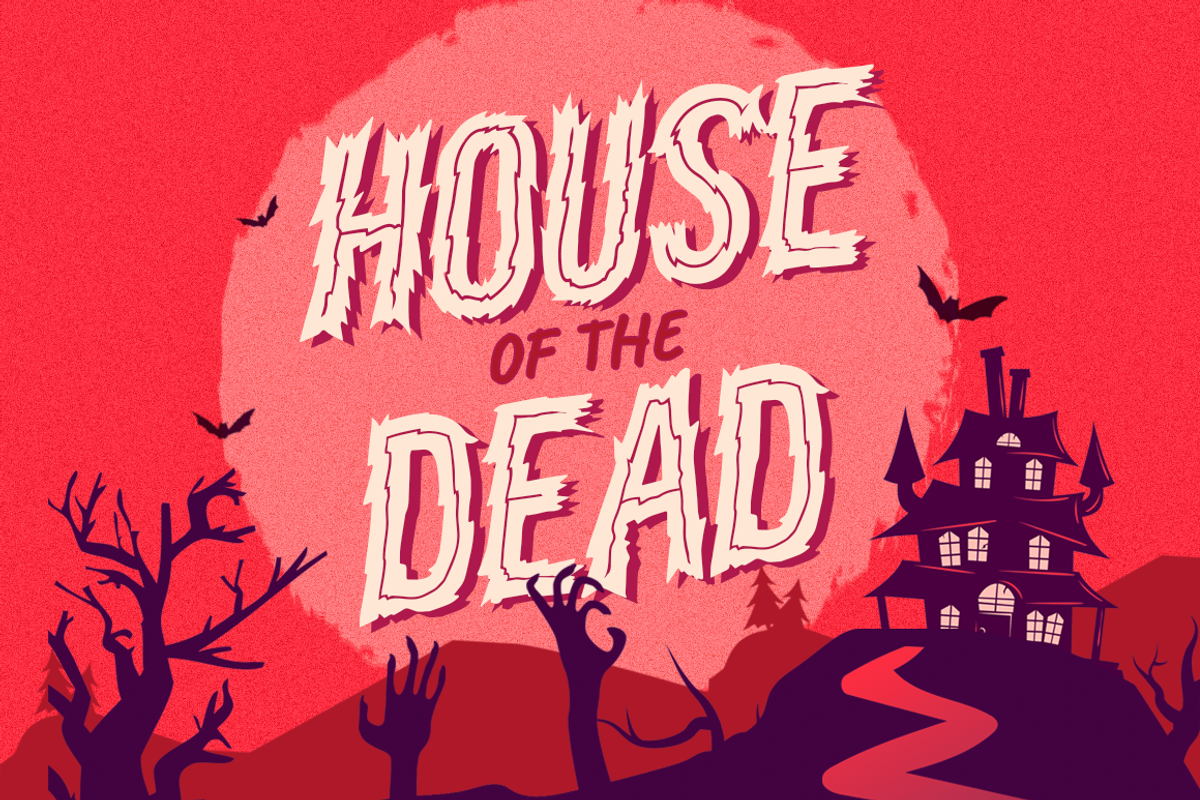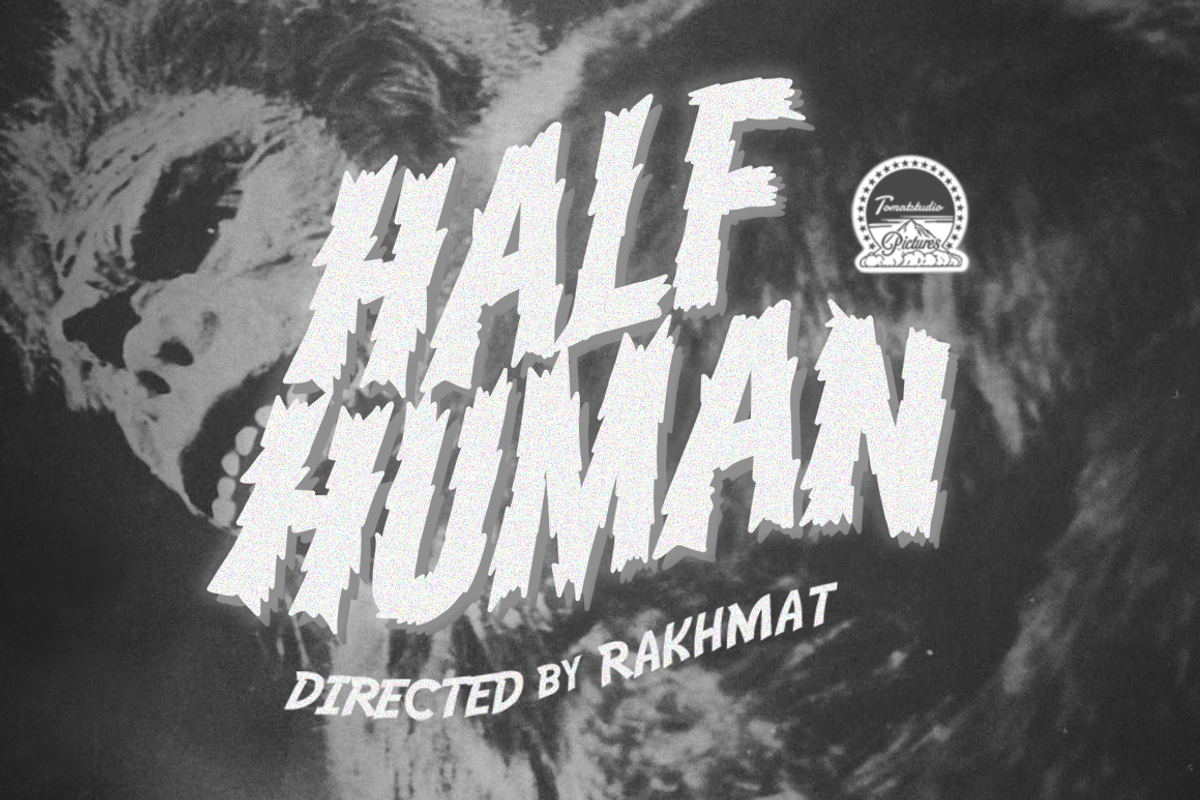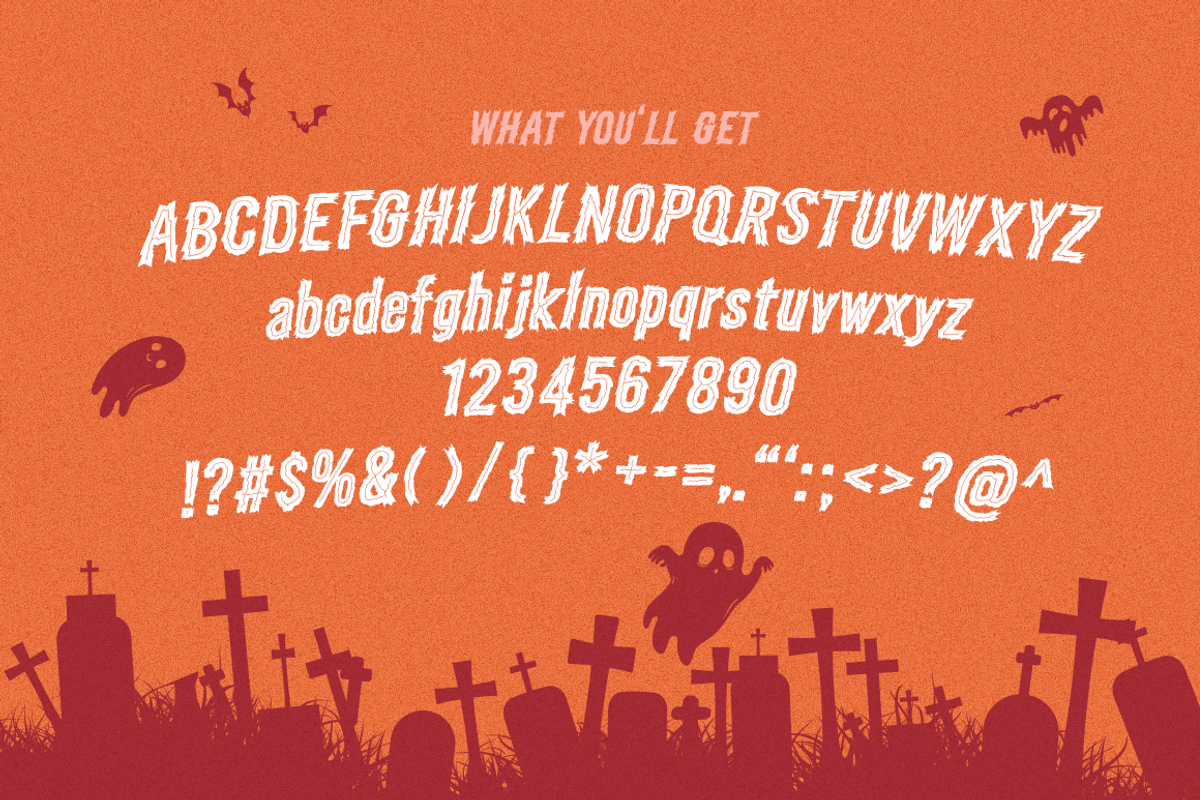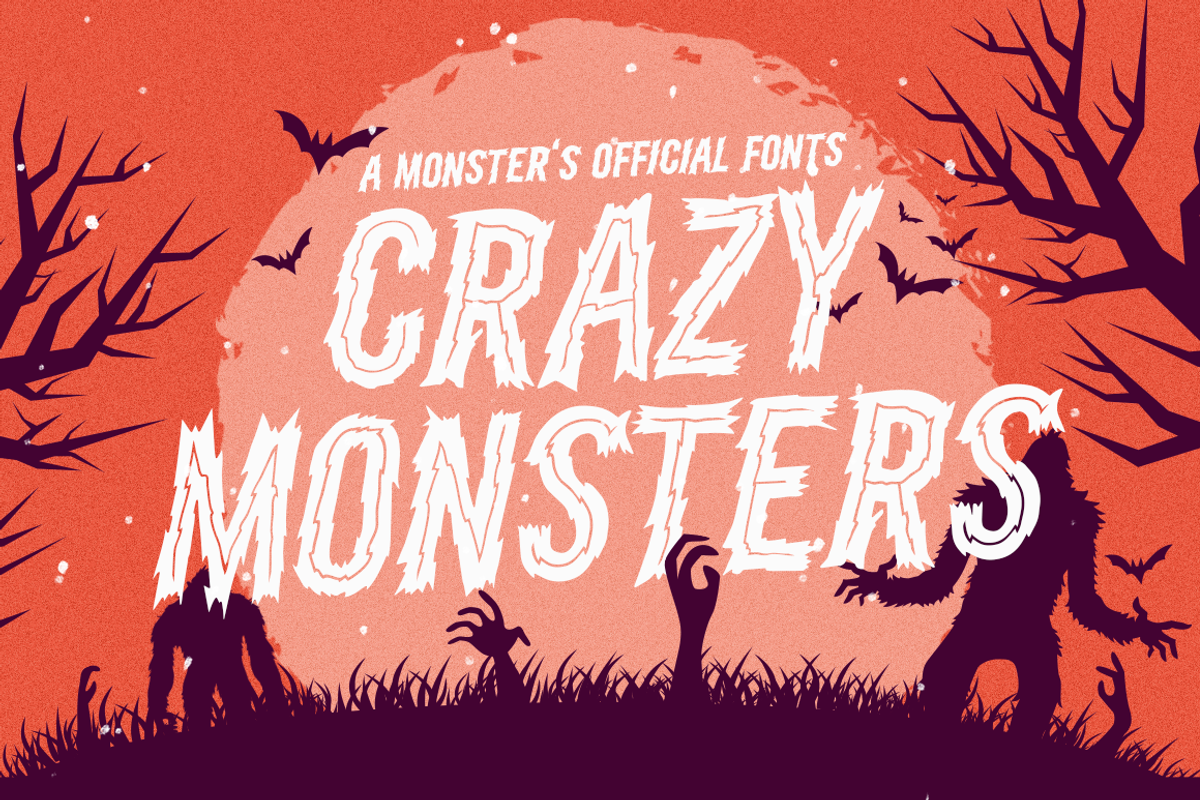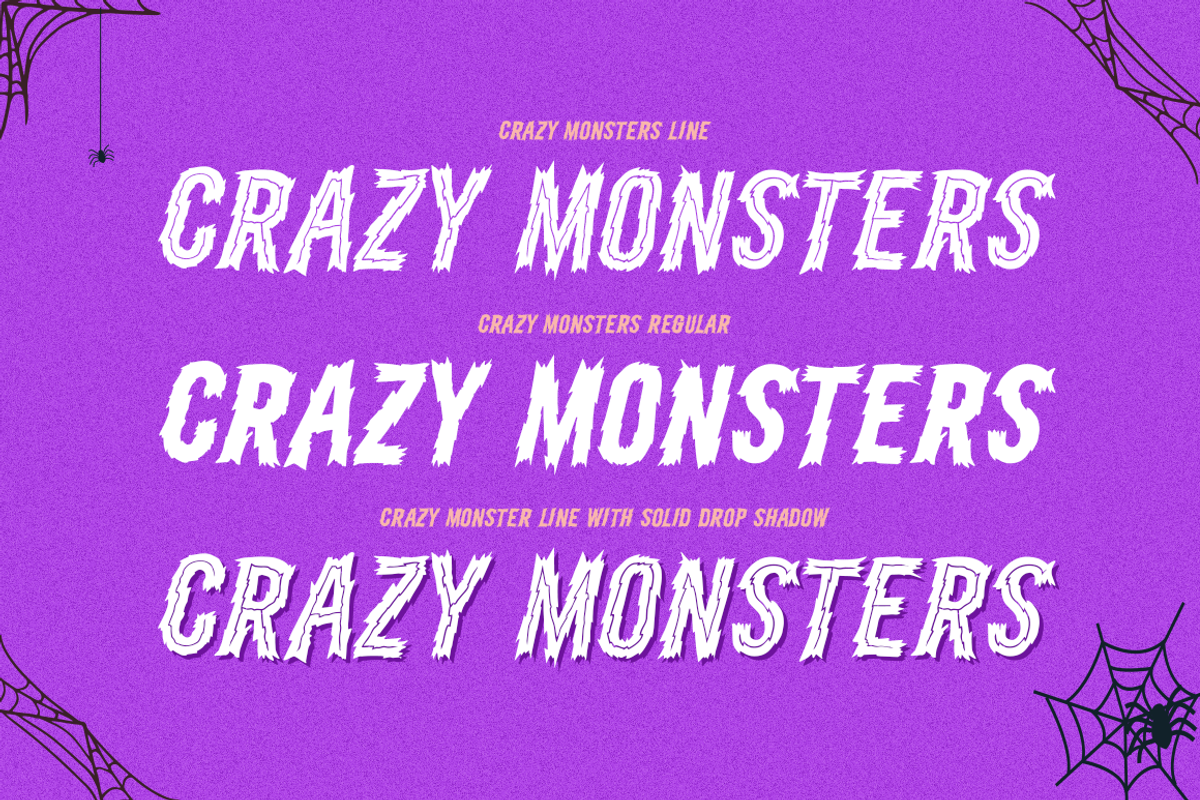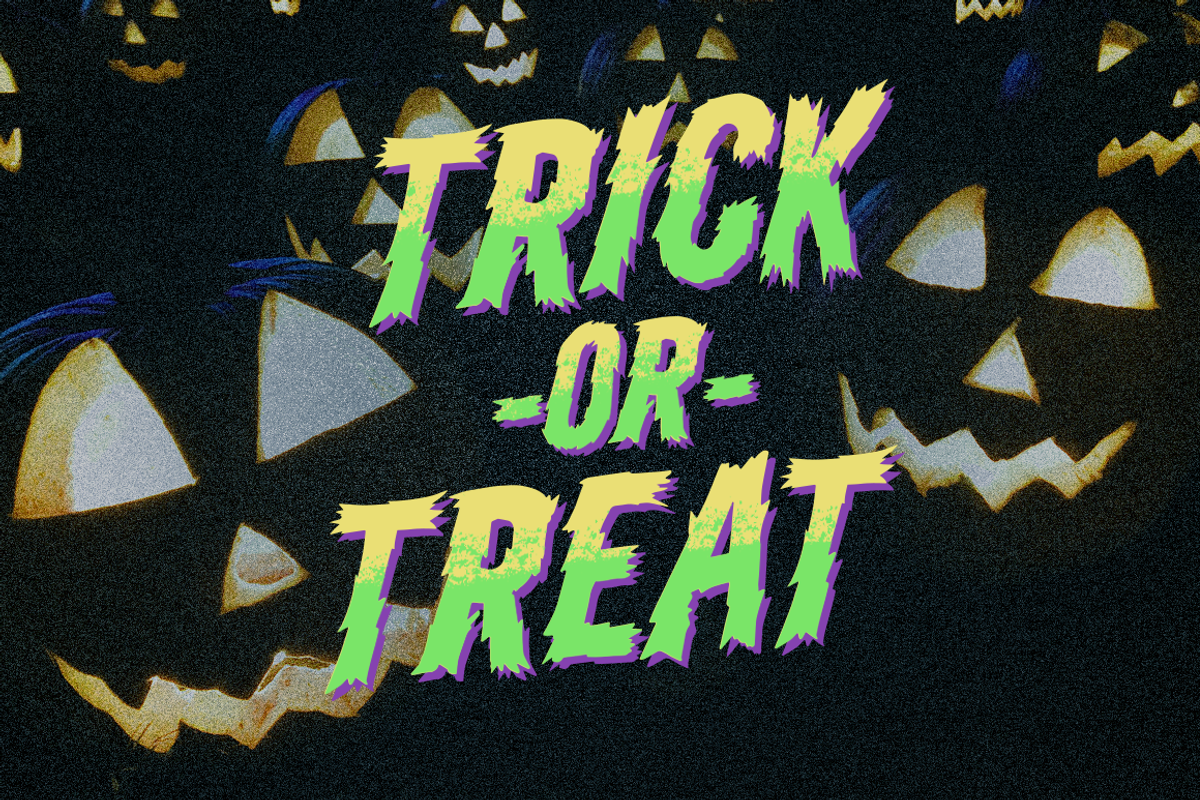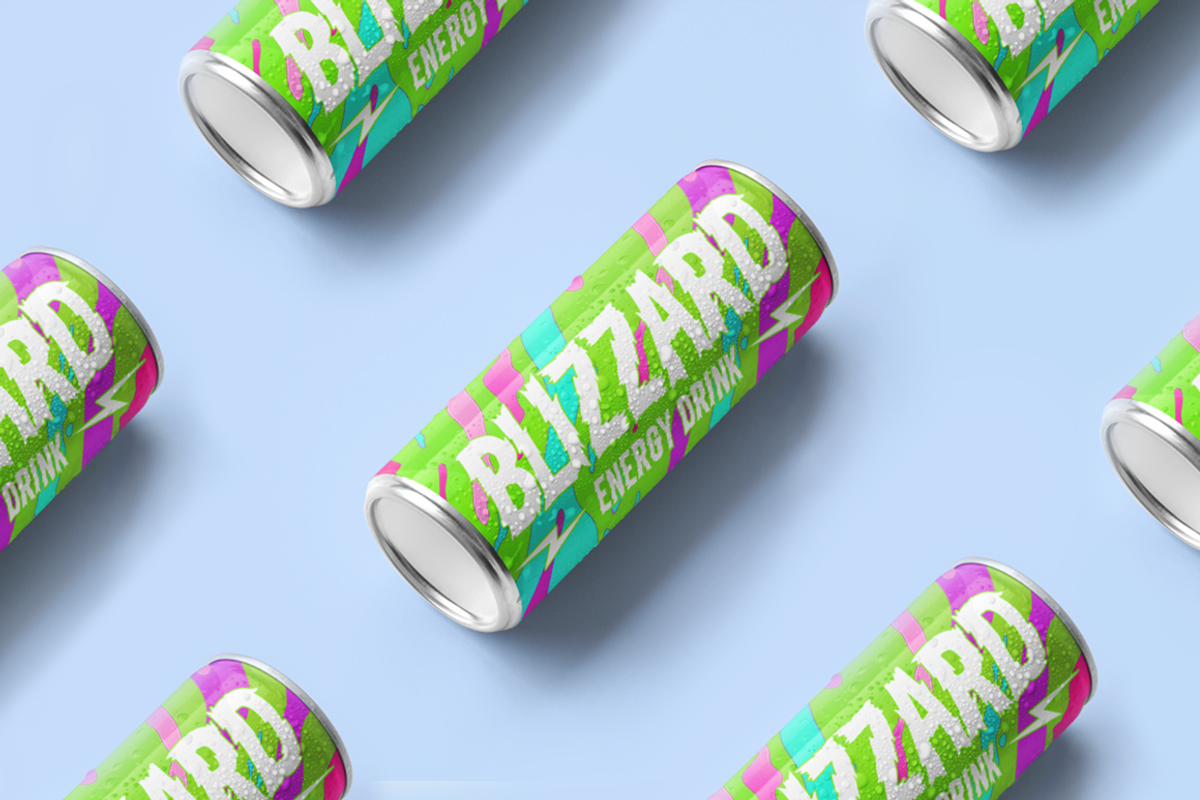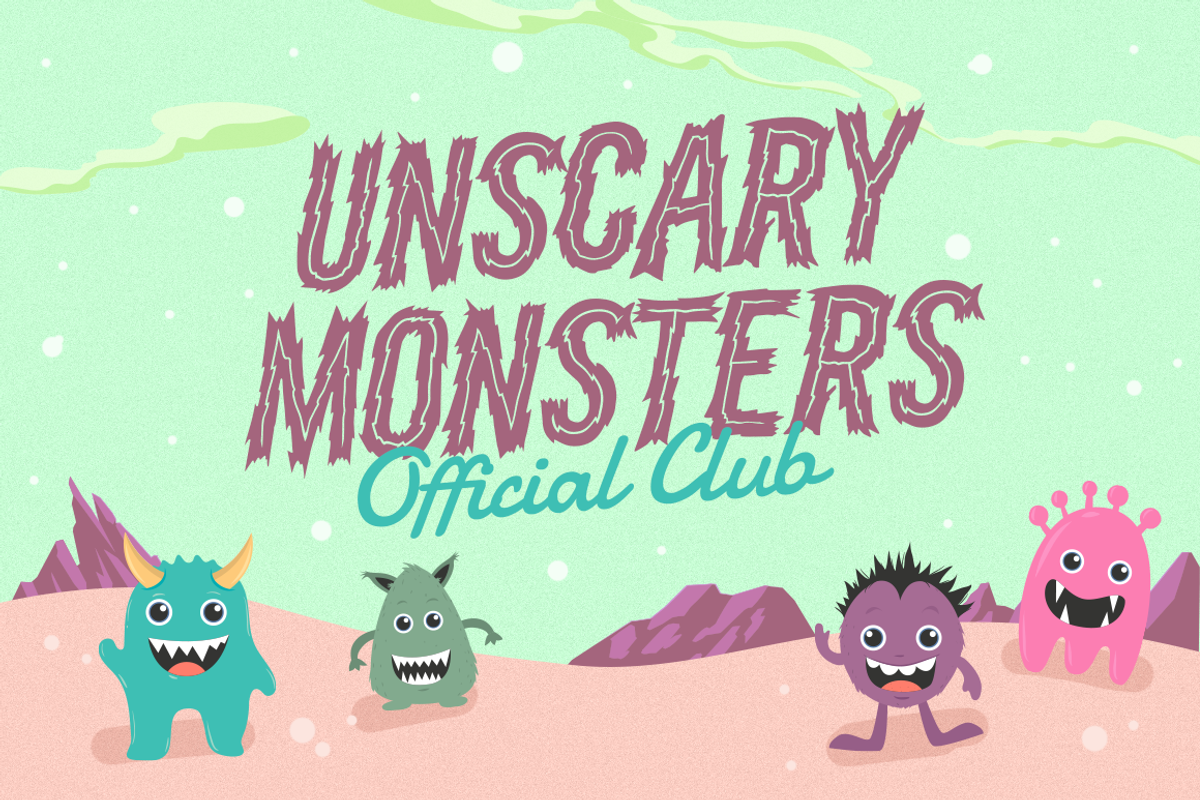
Horror Fonts | Crazy Monsters
Designed for horror vintage design, but it also flexible to any modern design needs.
You'll get 2 fonts "Crazy Monster" and "Crazy Monster Line" a series of font with line inside the glyphs.